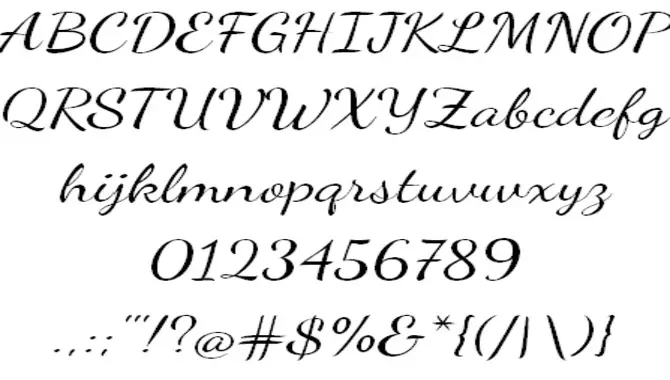
In a world filled with sleek and modern fonts, there is something timeless and elegant about the cursive font. Its graceful loops and flowing lines add a touch of sophistication to any design.
Cursive Font refers to a handwriting style where letters are joined together with smooth strokes. It is taught in schools as the traditional form of cursive writing and is valued for its timeless elegance. Practising this font can enhance legibility and writing speed.
We will explore the beauty of cursive font and provide tips on using it effectively. Whether you are a graphic designer or simply someone who appreciates the art of handwriting, mastering standard cursive font can take your skills to the next level. So let’s dive in and unlock the secrets of this timeless art.
How To Incorporate Standard Cursive Font Into Your Design
To seamlessly incorporate cursive standard font into your design, it’s crucial to understand the basics of cursive handwriting and the standard cursive font style. Use appropriate software or tools for creating beautiful cursive fonts digitally.
Refine your cursive writing skills through practice, creating authentic and appealing designs. Experiment with design elements like size, spacing, and embellishments, enhancing the elegance of the cursive font. Incorporate this font into diverse projects – logos, invitations, and signage. Achieve your work’s timeless, sophisticated vibe with the best cursive fonts.
The Timeless Appeal Of Cursive Font
The timeless appeal of incorporating the cursive font into your designs goes beyond its elegance and sophistication. This classic choice, widely used in wedding invitations, signage, and branding, brings a nostalgic vibe and evokes a sense of tradition and craftsmanship.
Prioritizing readability and legibility when using this font, you can ensure your audience easily comprehends the information. Selectively integrate this great font into your designs to create eye-catching typography. Download the best cursive fonts and explore the world of retro calligraphy with graceful brush strokes and captivating ligatures. Here are some cursive fonts:
1. Dancing Script
Dancing Script, a much-loved cursive font, embodies grace and refinement. Its interlinked letters gracefully replicate handwritten strokes. Whether for invitations, logos, or signs, Dancing Script is incredibly versatile. Paying attention to letter spacing and line height ensures legibility.
Blending Dancing Script with complementary fonts or a unified design enhances its allure. Experience the timeless elegance of this captivating font and elevate your designs effortlessly.
2. Allura
Allura brings an air of elegance and sophistication to any project. Its smooth and flowing letterforms, delicate flourishes, and vintage charm make it a fantastic choice for invitations, logos, and branding materials.
Remember to adjust letter spacing and line height for maximum legibility. Pair Allura with a serif or sans-serif font to create striking visual contrast. Mastering this classic cursive font will add a touch of timeless beauty to your designs.
3. Tangerine
Tangerine, a popular cursive font, is known for its simple elegance. This versatile font is perfect for logos, invitations, and posters, adding a timeless touch to your designs. Tangerine exudes sophistication and charm with its smooth curves, flowing strokes, and classic look. Whether creating a vintage-inspired logo or an elegant invitation, Tangerine is a great font choice to elevate your design.
4. Cookie
Cookie, a popular choice for cursive fonts, exudes elegance and sophistication with its smooth, flowing strokes and slight slant. Ideal for wedding invitations, logos, and branding materials, this versatile font adds a timeless charm to various design projects.
Use it alongside serif or sans-serif fonts to create contrast and visual interest. Remember to adjust letter size and spacing for maximum readability and legibility. Download Cookie font for free and unleash the creative potential of cursive writing.
5. Herr Von Muellerhoff
Herr Von Muellerhoff, a standard cursive font, emanates elegance and sophistication. Its beautiful flowing letters make it ideal for wedding invitations, logos, and signage. Ensure readability by selecting appropriate sizing and spacing.
Herr Von Muellerhoff, a cursive standard font, blends timeless charm and classic aesthetics, infusing a retro and calligraphic touch into your design. With its swirls and graceful brush strokes, it exudes an air of sophistication and epitomizes the art of cursive handwriting.
Benefits Of Mastering Cursive Font
Mastering the art of cursive font offers a range of benefits beyond simply improving your handwriting. This timeless skill enhances legibility and elegance, engaging both hemispheres of the brain for improved cognitive abilities and motor skills.
Connect with history and express individuality through elegant writing. Practical in professional settings, signing documents, and writing formal letters with cursive font charm.
5.Is It Necessary To Learn The Cursive Font In Today’s Digital Age?
Ans: Learning the cursive font is not necessary in today’s digital age, but it can still have benefits. It enhances fine motor skills and hand-eye coordination, aids in quick note-taking, and adds a personal touch to handwritten communication.